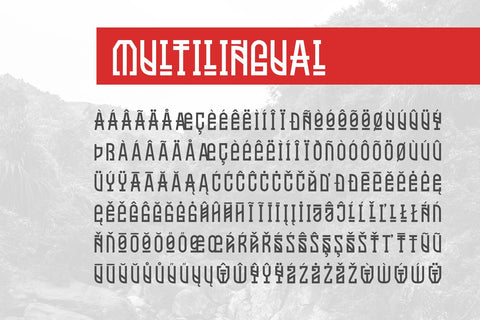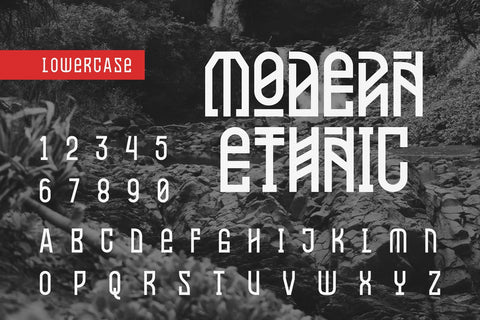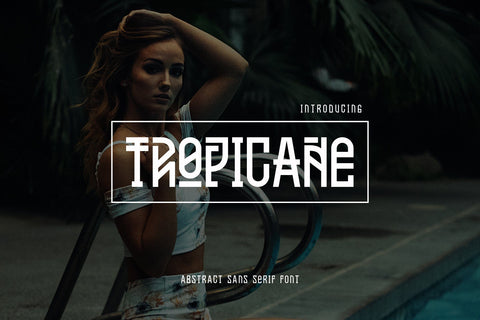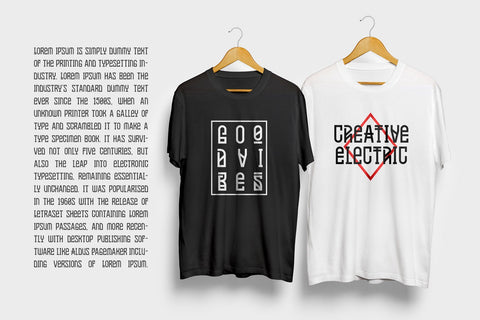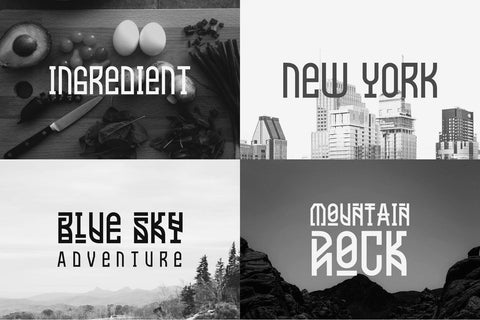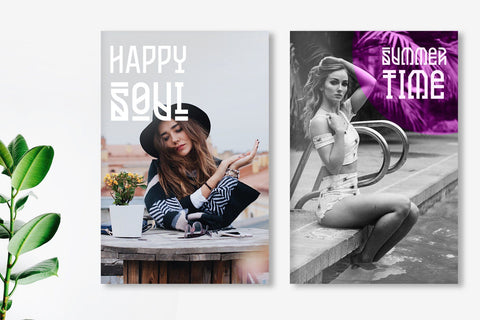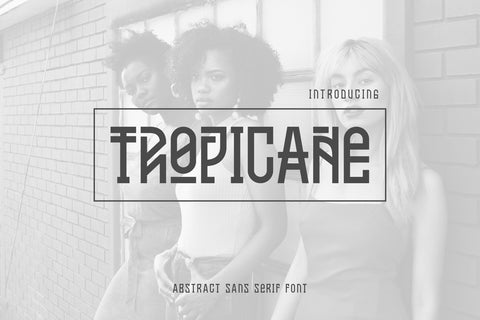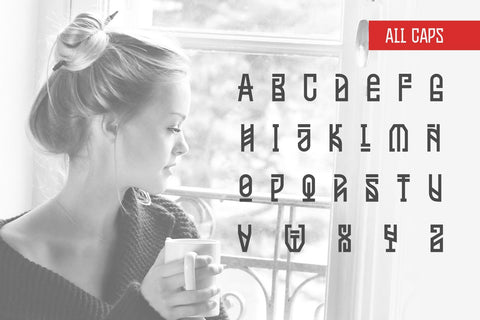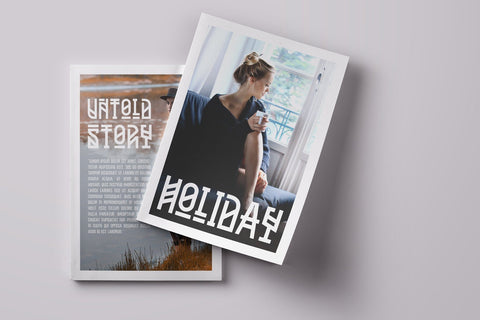
Tropicane - Unique Font
Tropicane is an abstract-sans serif font. Designed with a combination of sans serif, electro, and traditional taste. Good shapes, specifically designed for display or headline. Fashionable for magazine header, label, minimalism print design, flyer, poster, logo, t-shirt, and branding.
This font is all-caps, with a clean version in the lowercase that you can combine it. An elegant playfully font! There are many accents in this font.